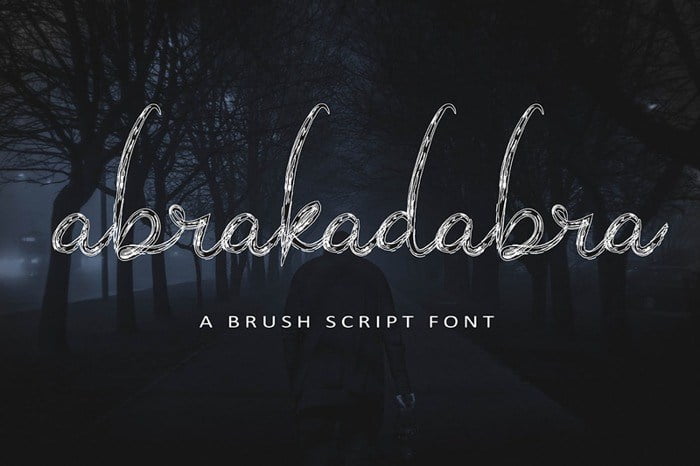
Abrakadabra Script Brush Font
Abrakadabra Font is a beautiful writing theme with a charming curve and a very shaky bottom line.
It has a perfectly paired free marker font, and a bunch of very practical Swash bonuses Ideal for logos, handwritten quotes, product packaging , headers, posters, merchandise, social media & greeting cards.